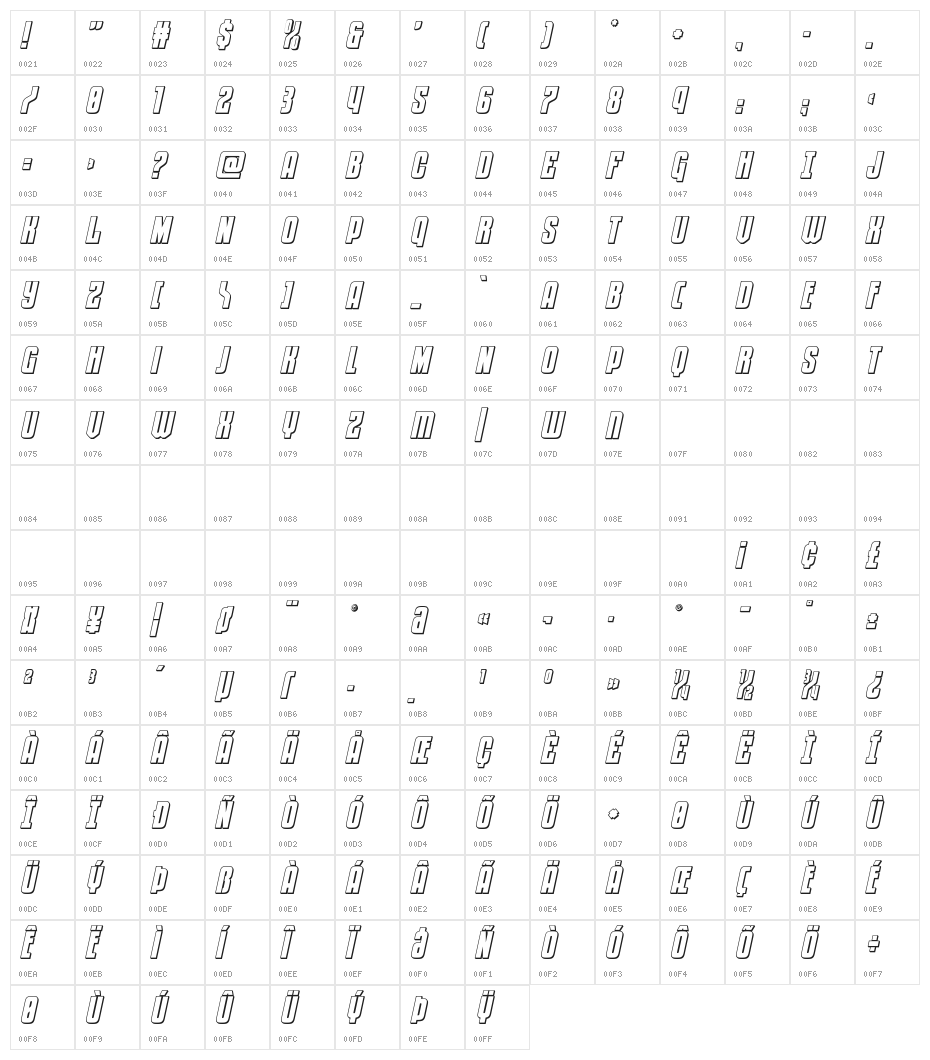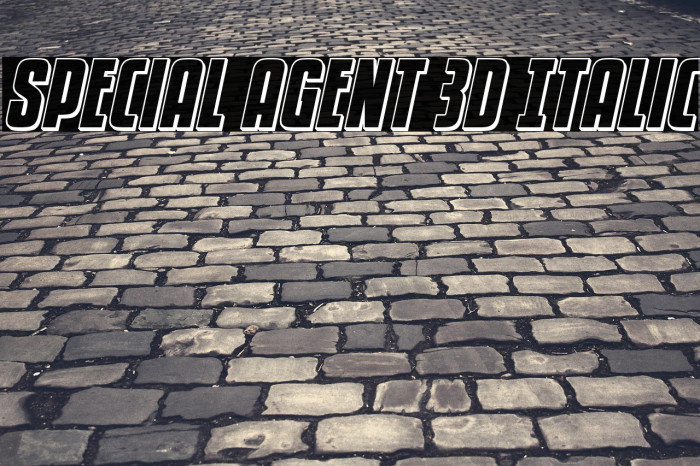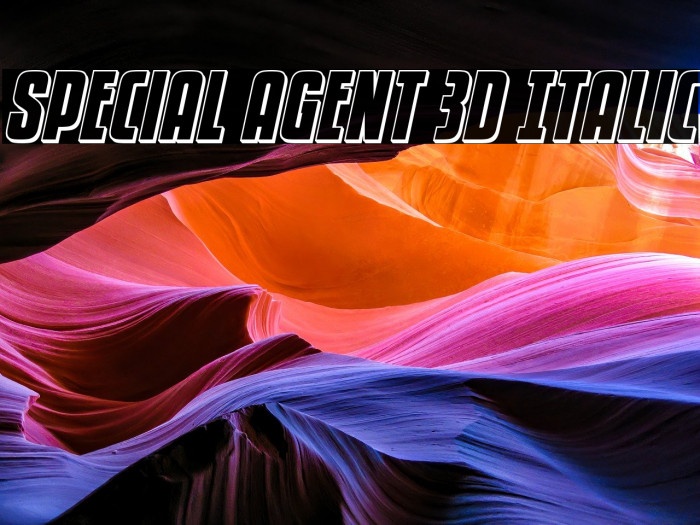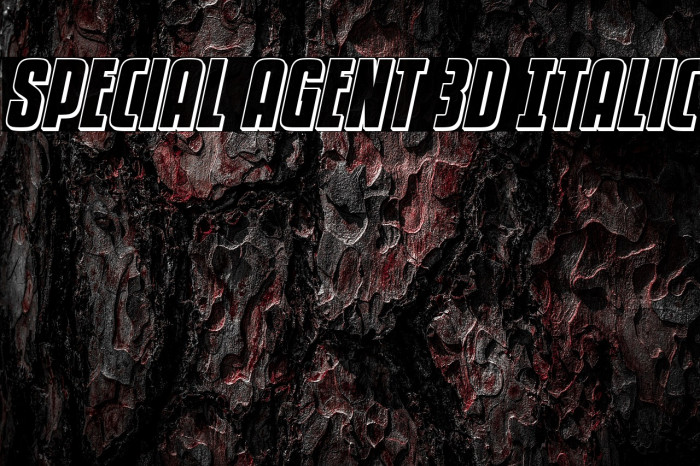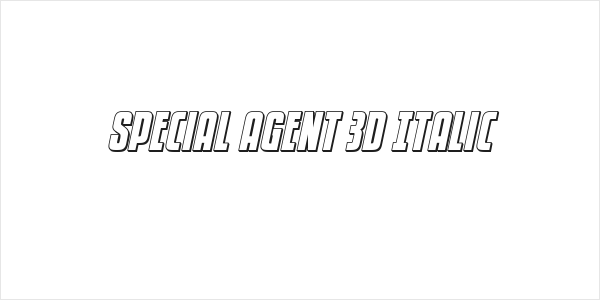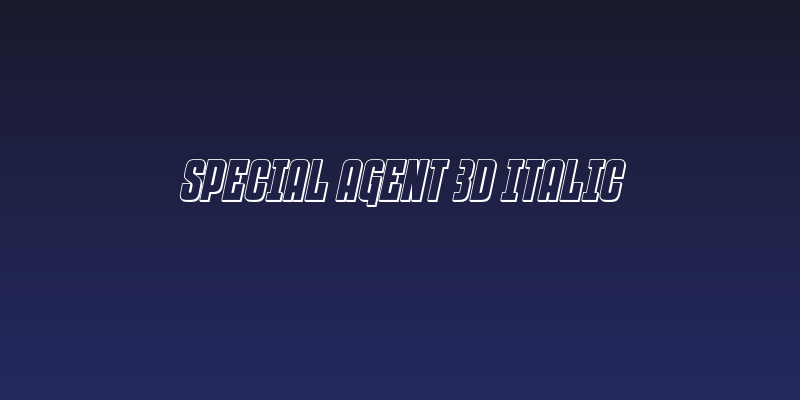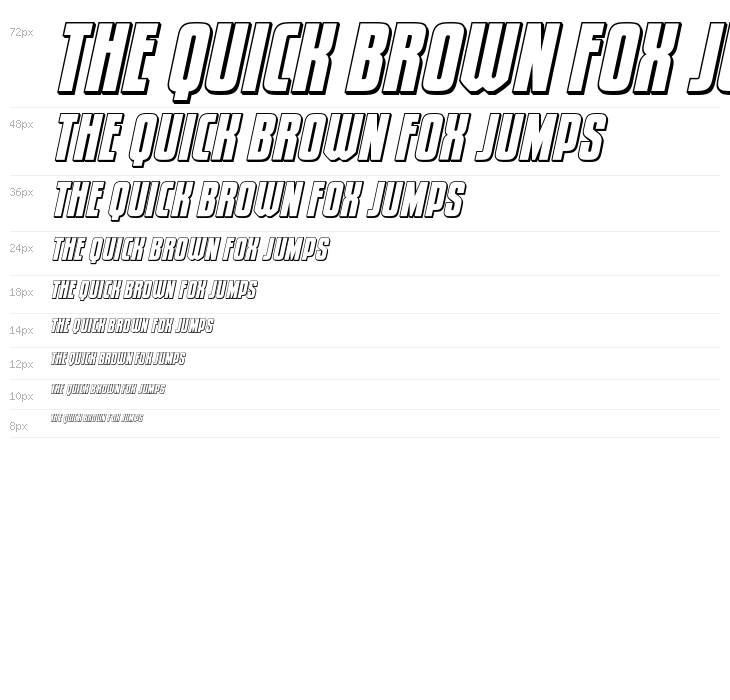
Special Agent 3D Italic Font
Special Agent 3D Italic Description
This font features a bold, three-dimensional design with an italic slant, giving it a dynamic and impactful appearance. The characters are outlined, enhancing the 3D effect and adding depth. The uppercase and lowercase letters maintain a consistent style, with sharp angles and clean lines. The numerals and special characters follow the same design principles, ensuring uniformity across all glyphs. This font's strong presence makes it ideal for attention-grabbing designs.